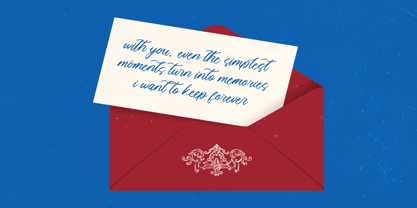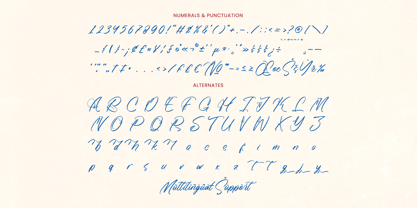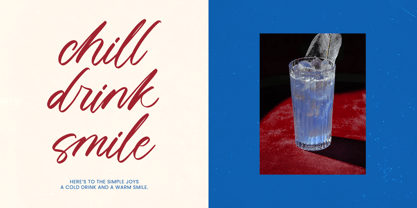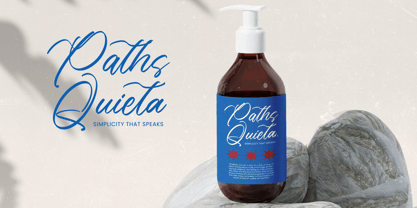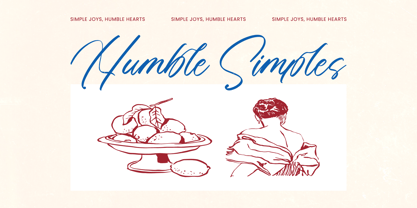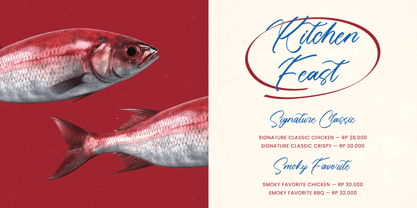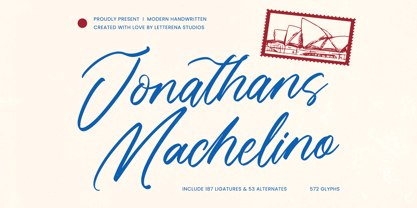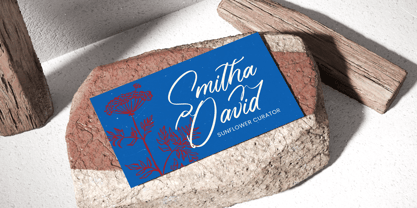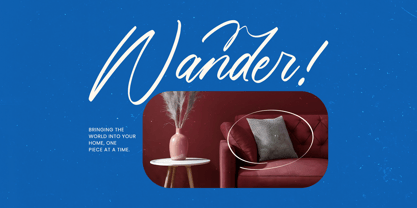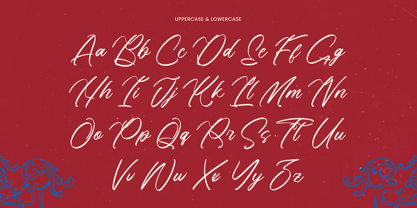
Jonathans Machelino
Die Schriftfamilie Jonathans Machelino wurde von Heru Utama Putra entworfen und von Letterena Studios veröffentlicht. Jonathans Machelino enthält 2 Stile und Familienpaketoptionen. Mehr über diese Familie
Jonathans Machelino is a modern handwritten script designed to bring effortless elegance and expressive charm to branding, editorial design, invitations, and lifestyle visuals. With 187 ligatures, 53 alternates, and a total of 572 glyphs, this font offers fluid strokes, refined curves, and natural handwritten rhythm that elevates any layout with personality and sophistication. Perfect for packaging, logos, social media aesthetics, stationery, and creative projects that demand a warm, polished, and authentically human touch.